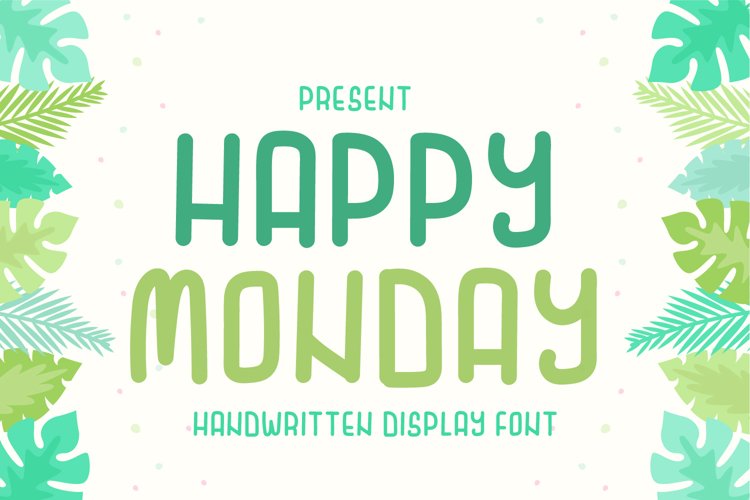
Happy Monday font that fits perfectly into anything. Its casual charm makes it look very down to earth, easy to read and, in the end, very versatile. Pricilial will look amazing in any context, whether used in a busy background or as a standalone headline!